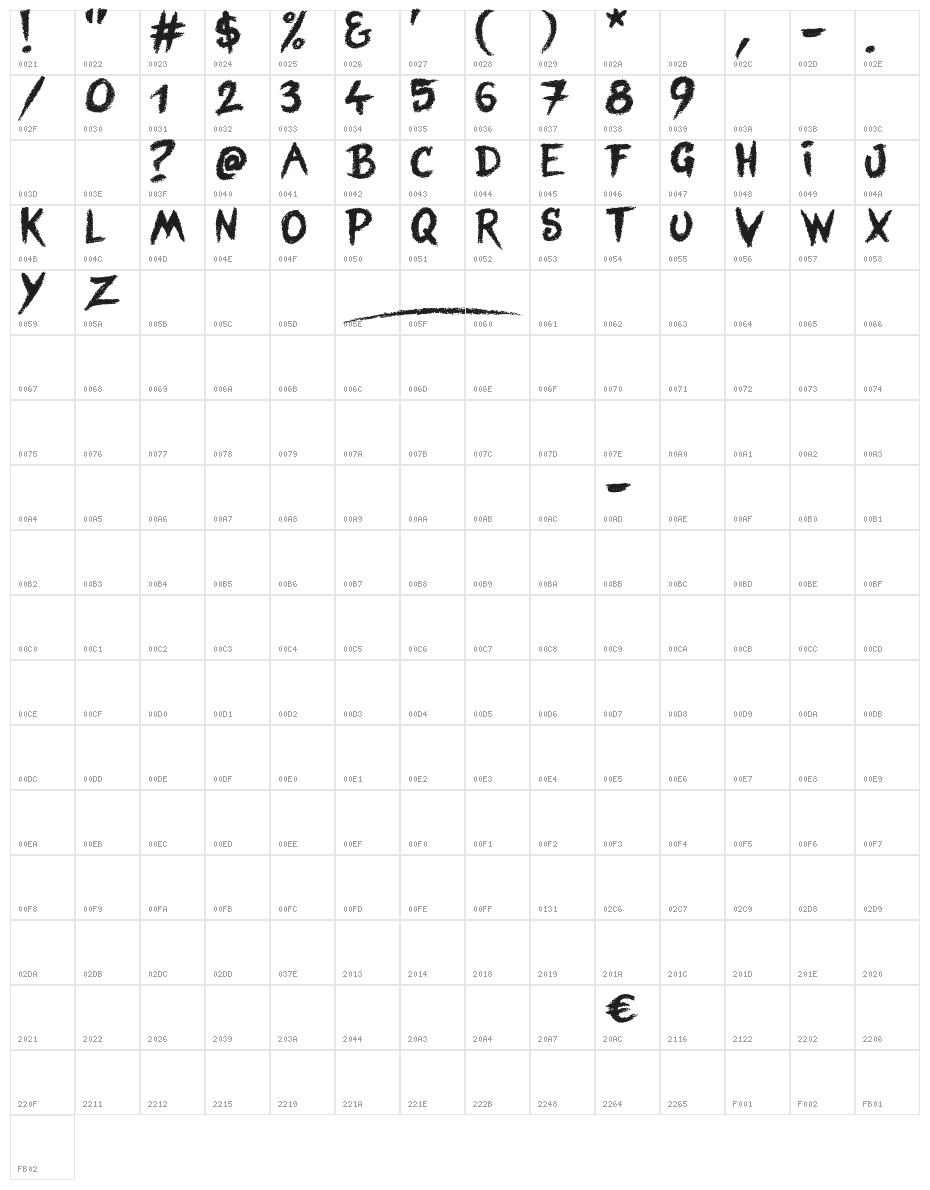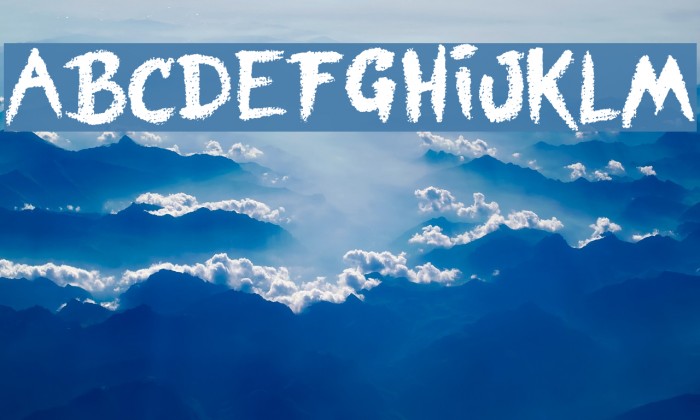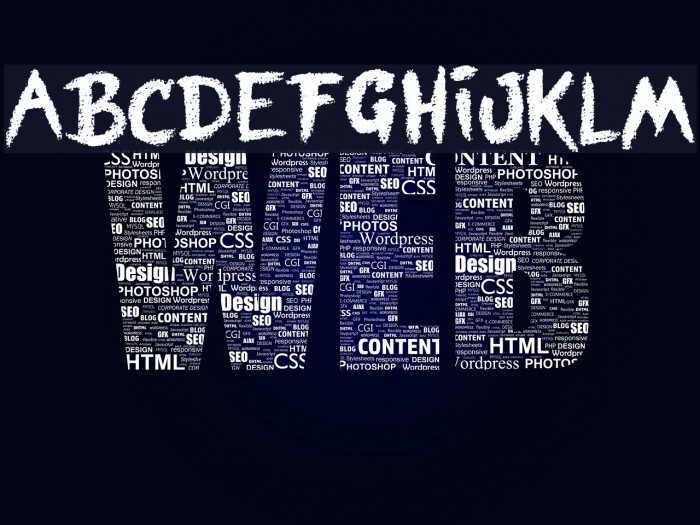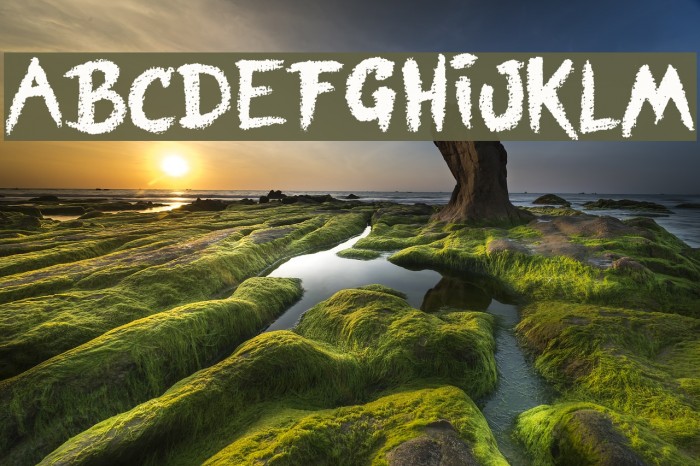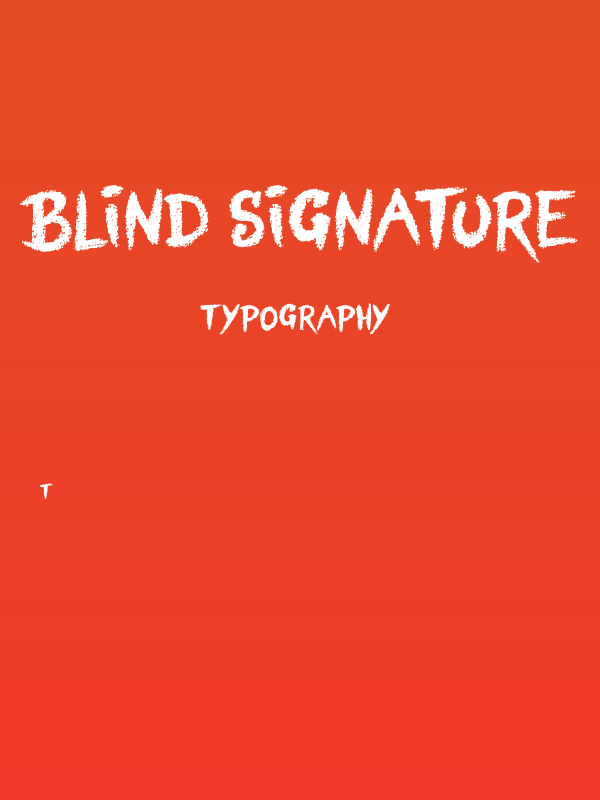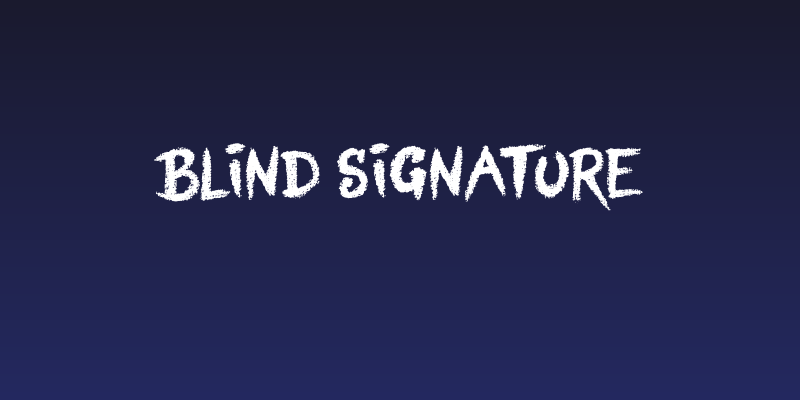
Blind Signature Font
Blind Signature Description
This font features a bold, expressive style with a hand-drawn appearance. The characters are irregular and dynamic, giving a sense of movement and energy. The strokes are thick and textured, resembling brush strokes or chalk, which adds a raw, artistic feel. The uppercase letters are bold and prominent, while the lowercase letters maintain the same energetic style. Numbers and special characters are consistent with this aesthetic, making the font suitable for creative and informal applications. The overall look is playful yet impactful, ideal for making a statement.
| Proposed Projects | Ideal for posters, album covers, graffiti art, and creative branding projects. |